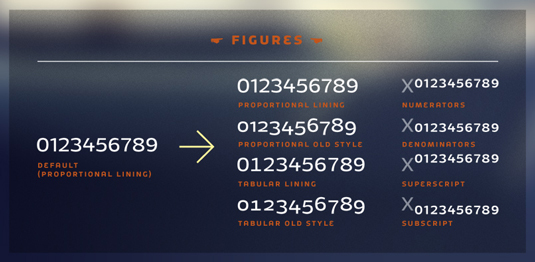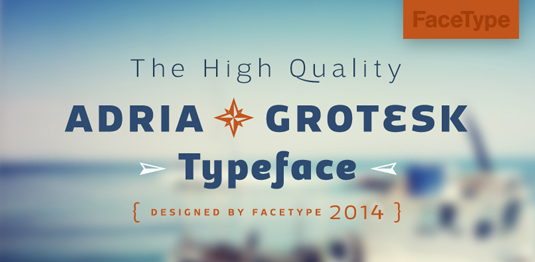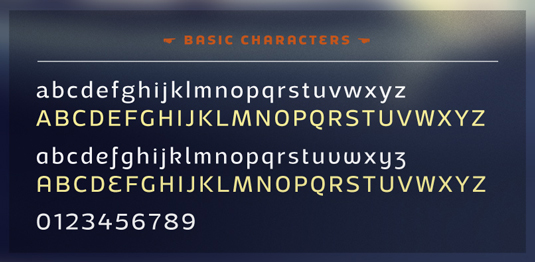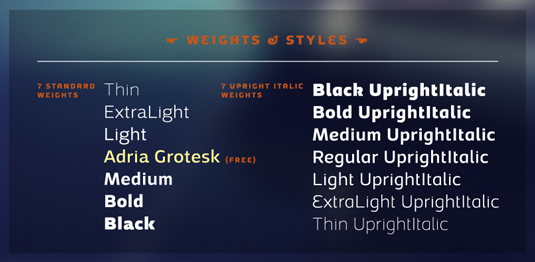
Font of the day: Adria Grotesk
Adria Grotesk by FaceType
Described on the site, Adria Grotesk "is a superfriendly and sunny humanist typeface that comes in seven carefully crafted weights and charming upright italics. You will find a fine choice of lining, tabular and old style figures, numerators, denominators, tabular figures, fractions, ligatures, some sweet symbols and even alternate arrows."